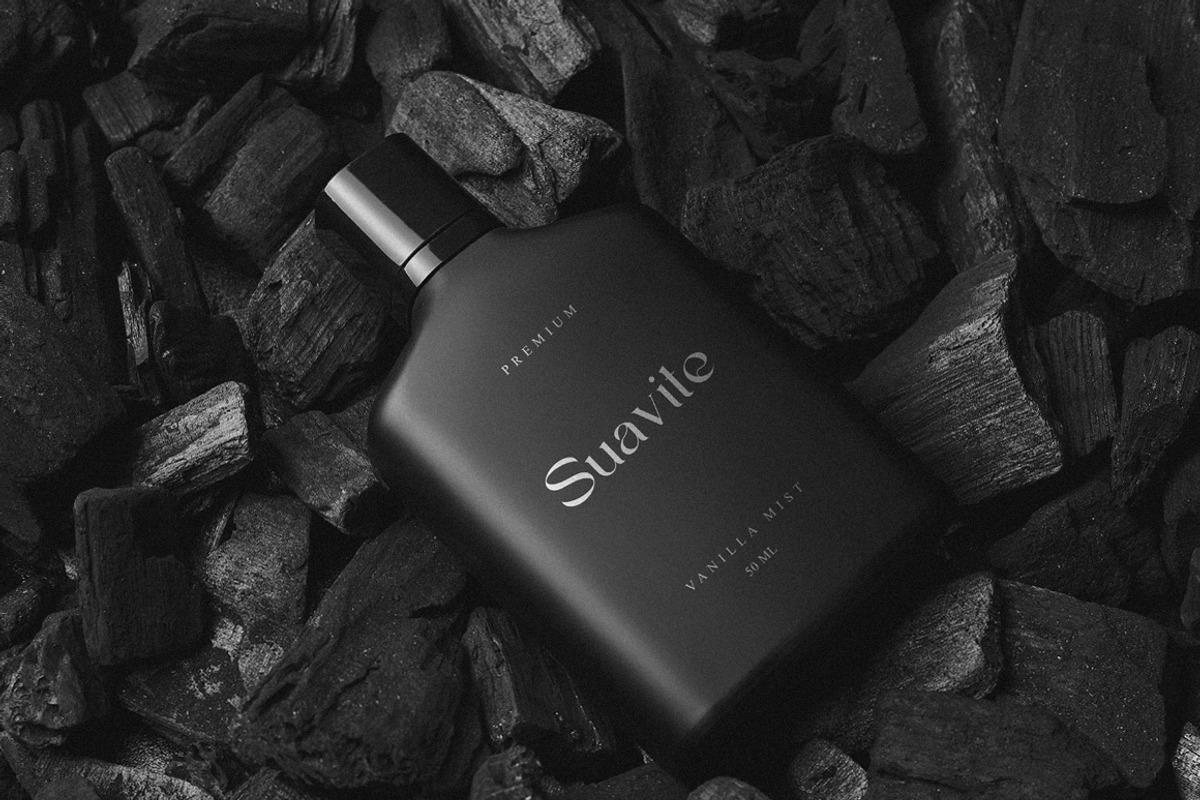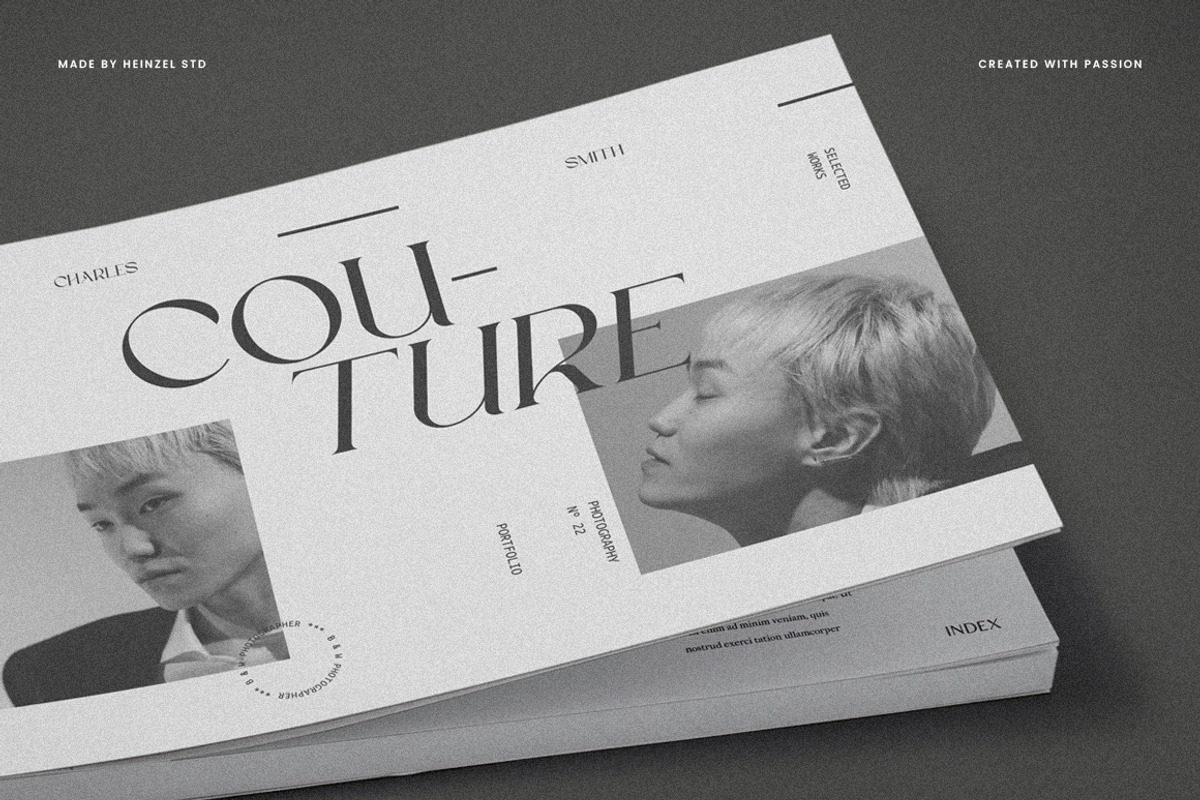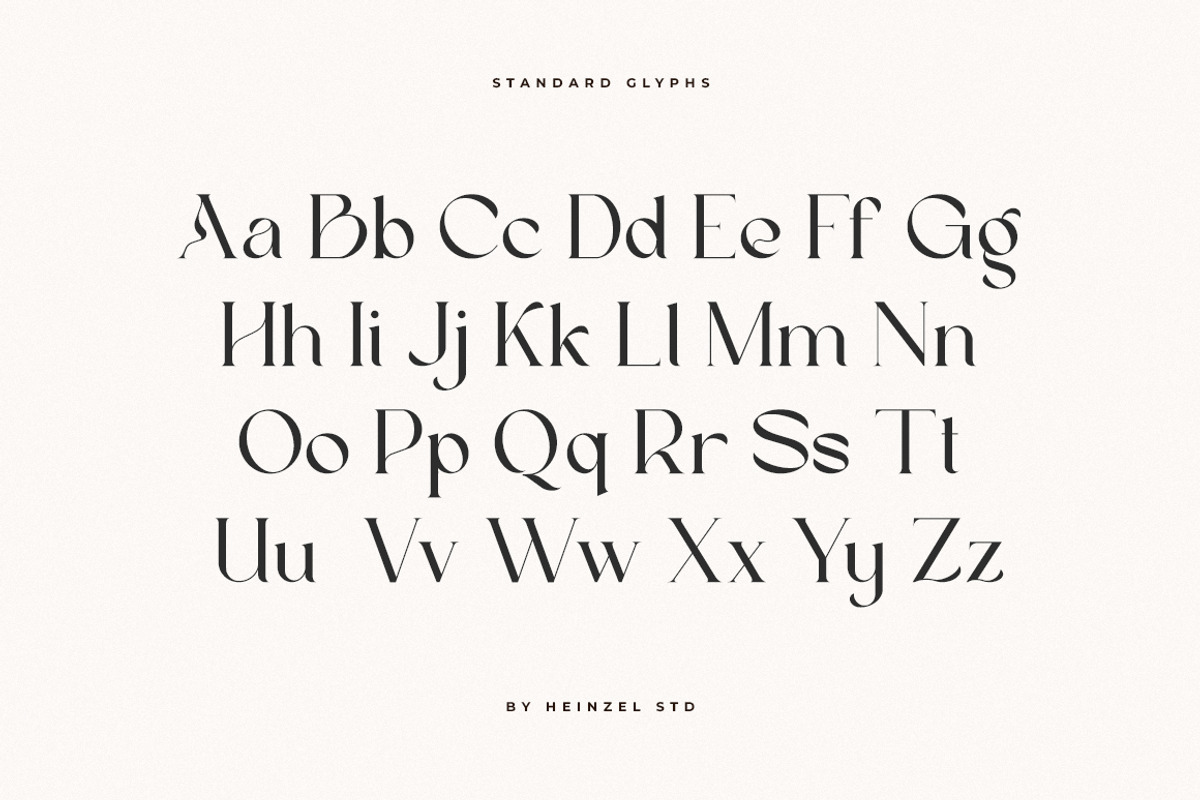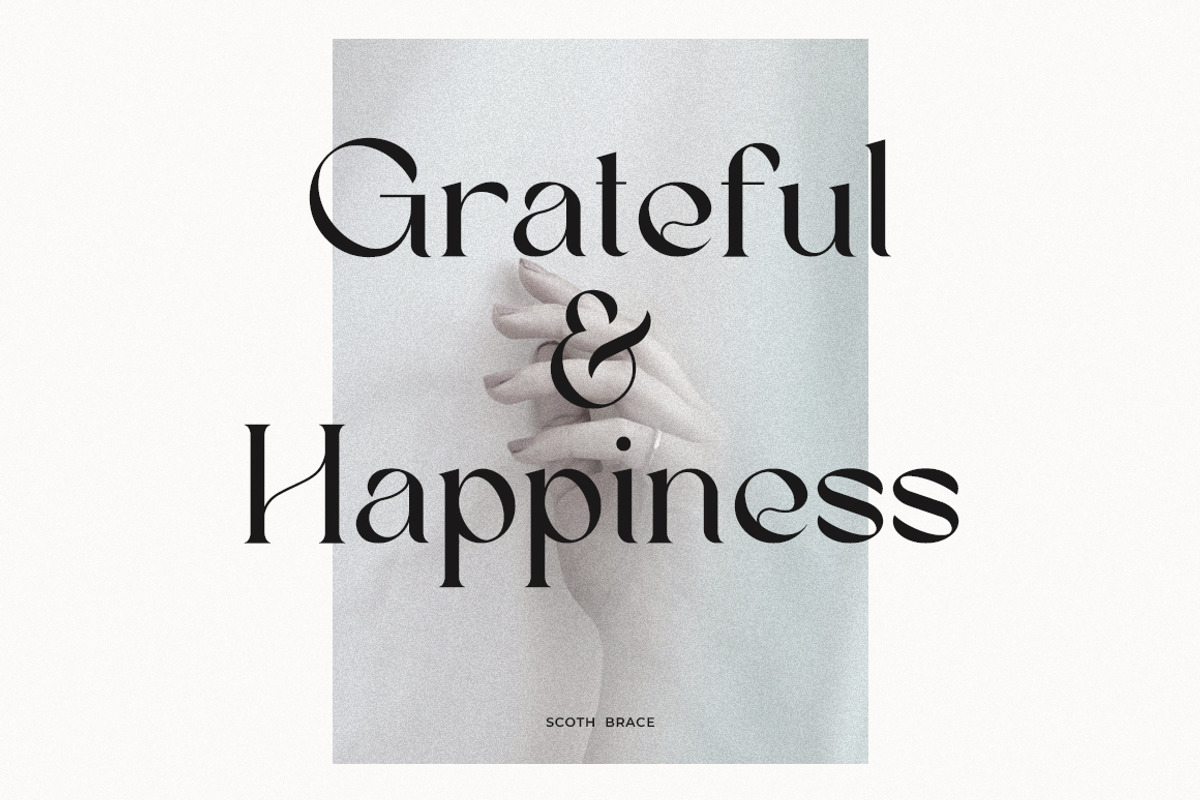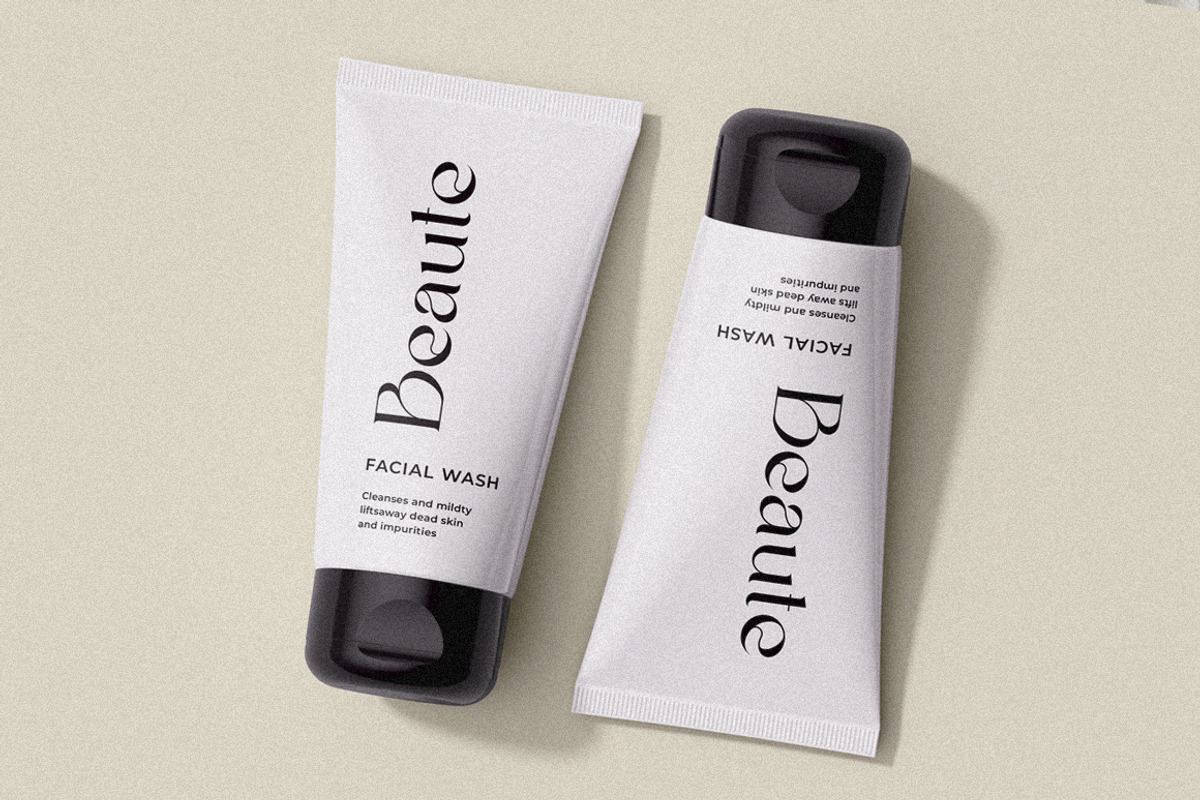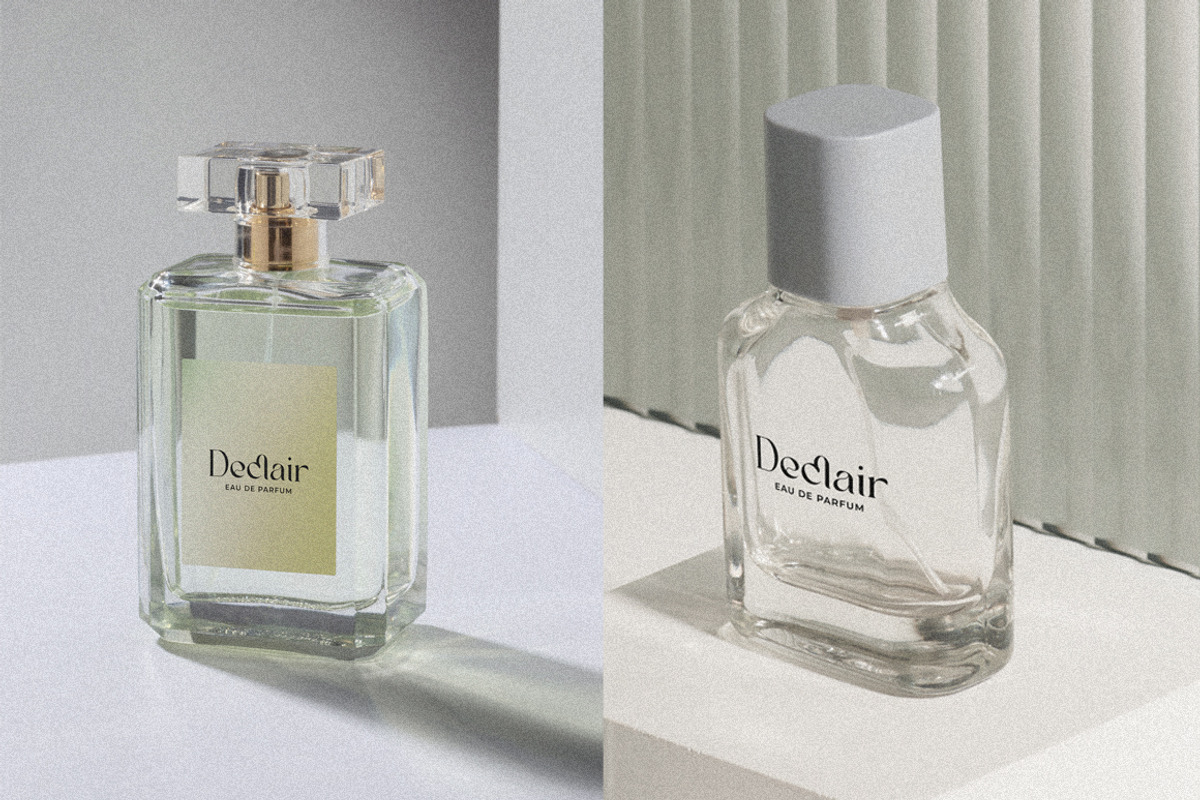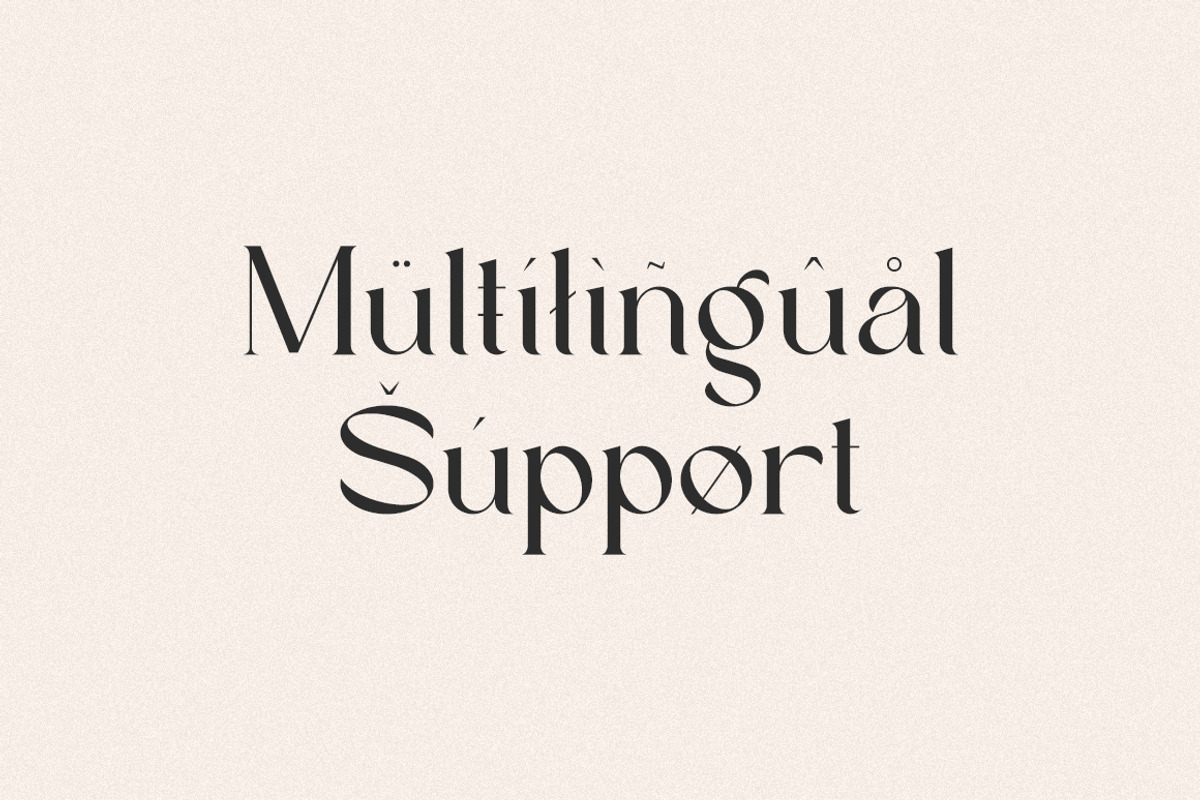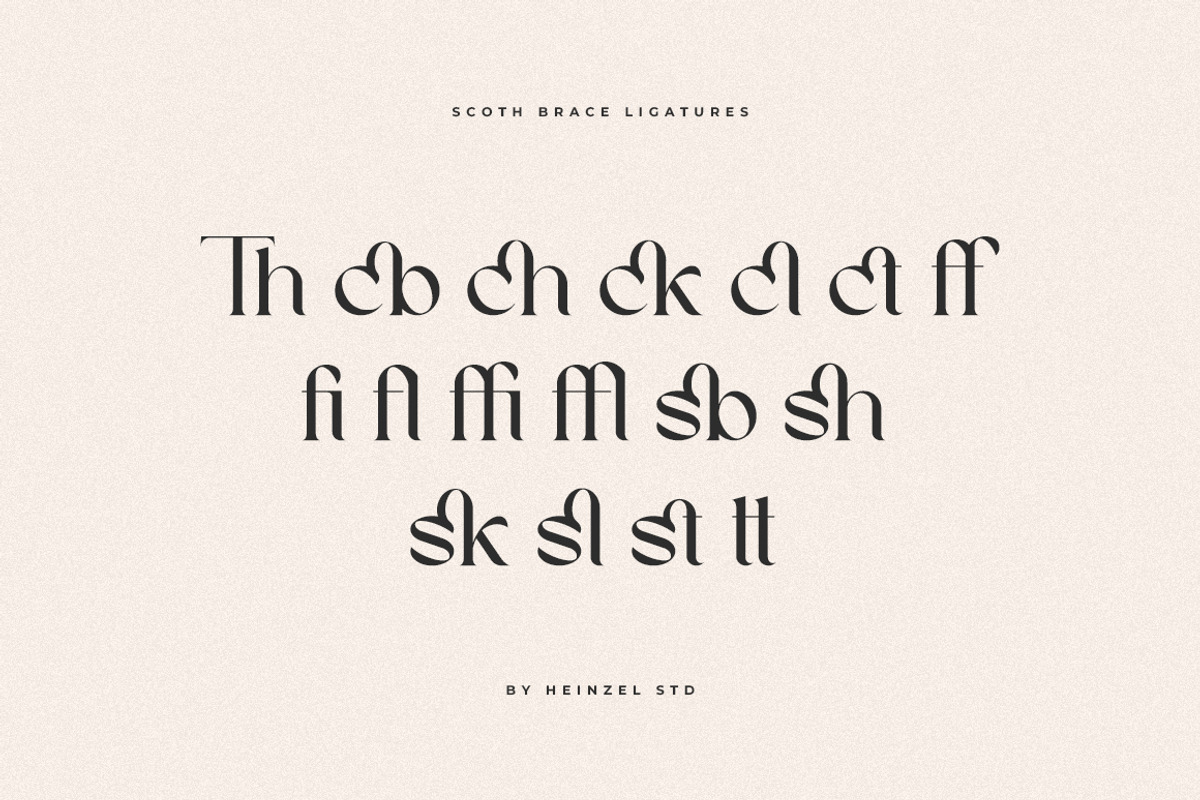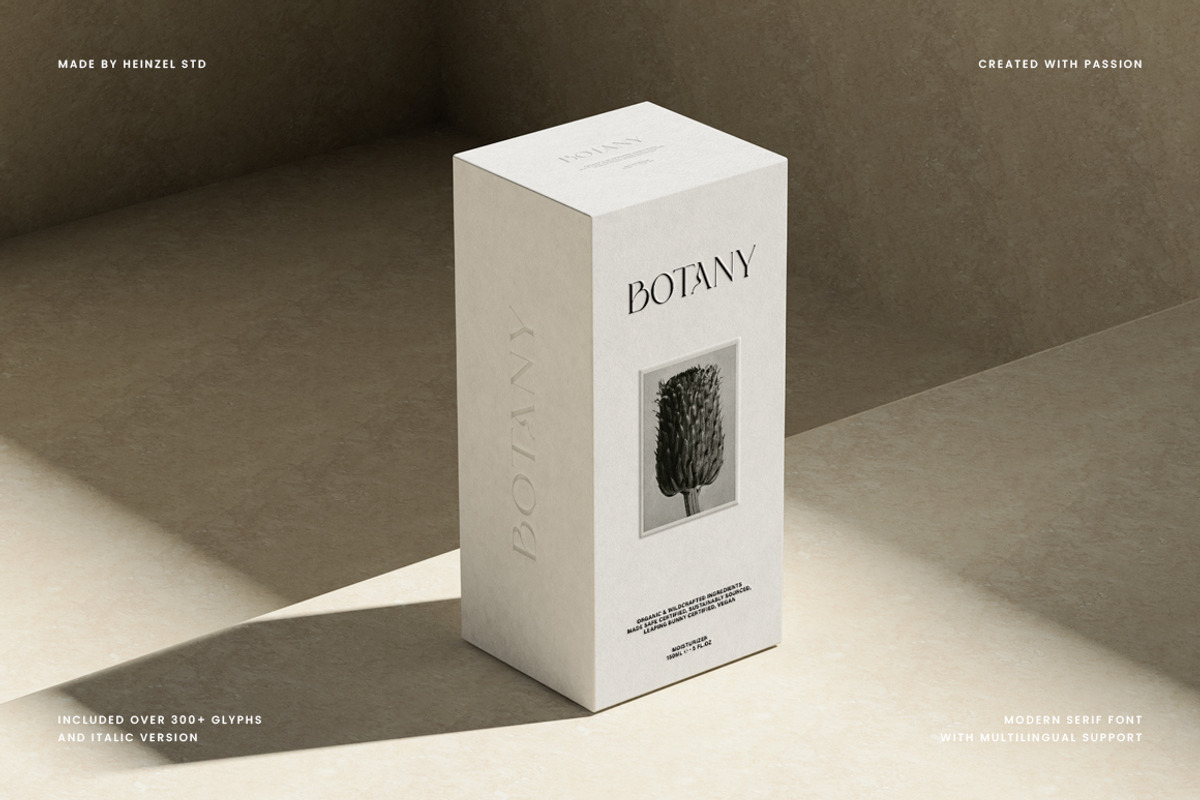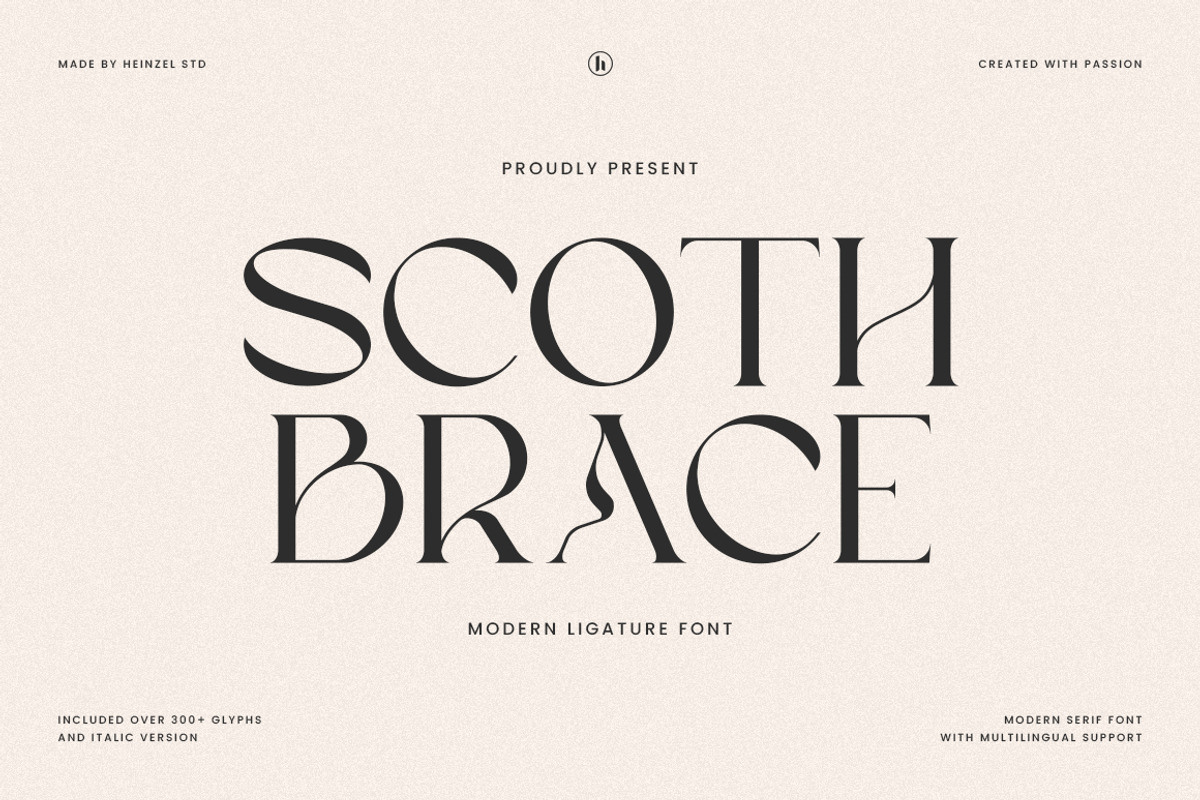
Scoth Brace Modern Ligature Font
Scoth Brace is an elegant and modern ligature serif font. Fall for its ravishing style and use it to create gorgeous logos, headlines, branding, wedding invitations, beautiful stationary art, eye-catching social media posts, and much more!
Scoth Brace Features:
- Scoth Brace Regular and Italic Version
- Uppercase, Lowercase, Numerals, and more punctuations.
- Multilingual support for various languages
This character set supports the following 21 languages: Afrikaans, Basque, Breton, Catalan, Danish, Dutch, English, Finnish, French, Gaelic (Irish, Scots), German, Icelandic, Indonesian, Irish, Italian, Norwegian, Portuguese, Saami (Southern), Spanish, Swahili, Swedish.